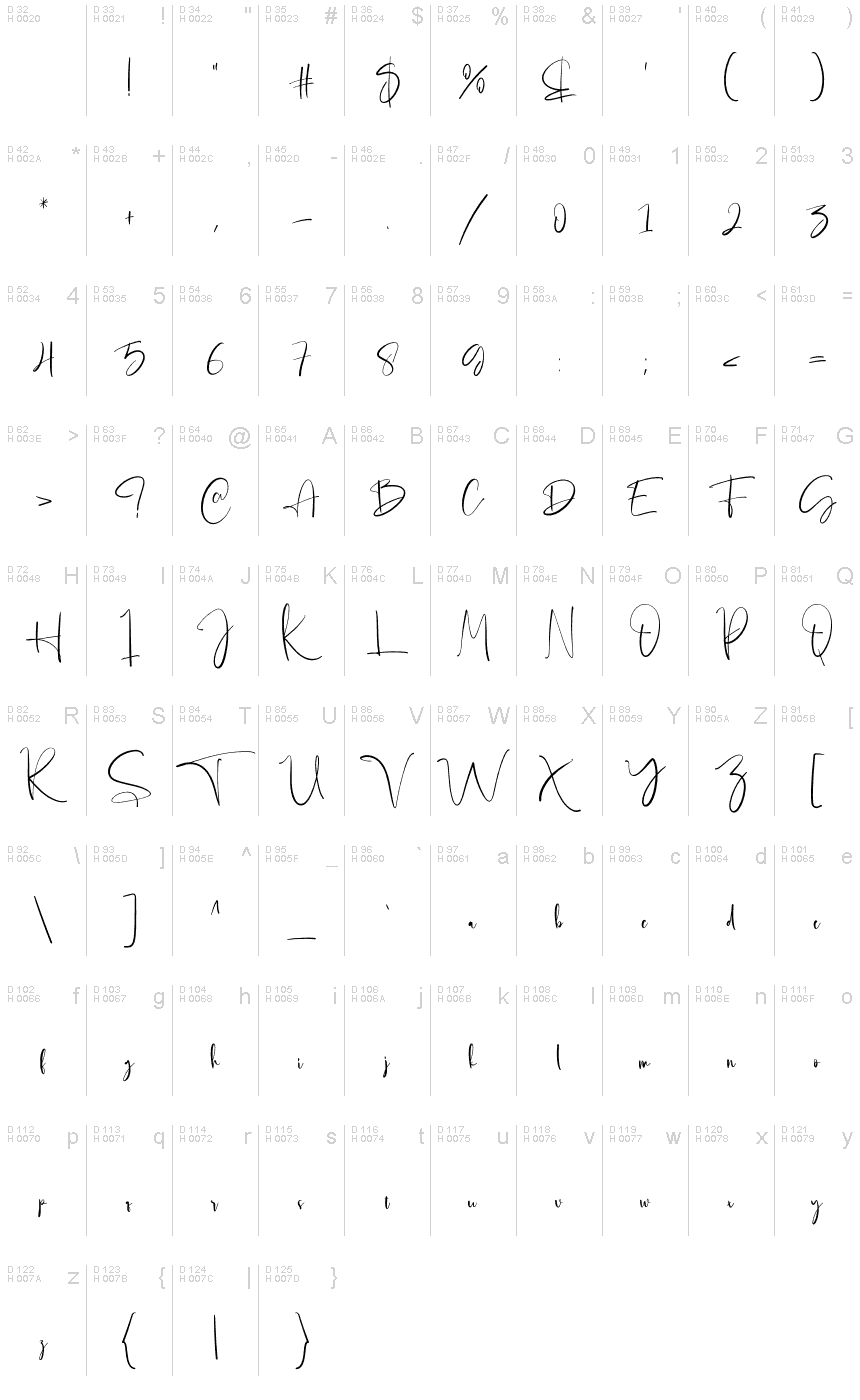
The Everleigh
The Everleigh, designed by Scratchones, is a captivating handwritten font that exudes elegance and sophistication. With its light weight, this signature-style typeface adds a touch of refinement to any project.
Its fluid strokes and unique letterforms make it perfect for wedding invitations, greeting cards, and personalized stationery. The Everleigh also lends itself beautifully to logo designs, branding materials, and fashion editorials. Whether you're working on a romantic wedding theme or launching a high-end boutique, this exquisite font will elevate your project to new heights of style and grace.